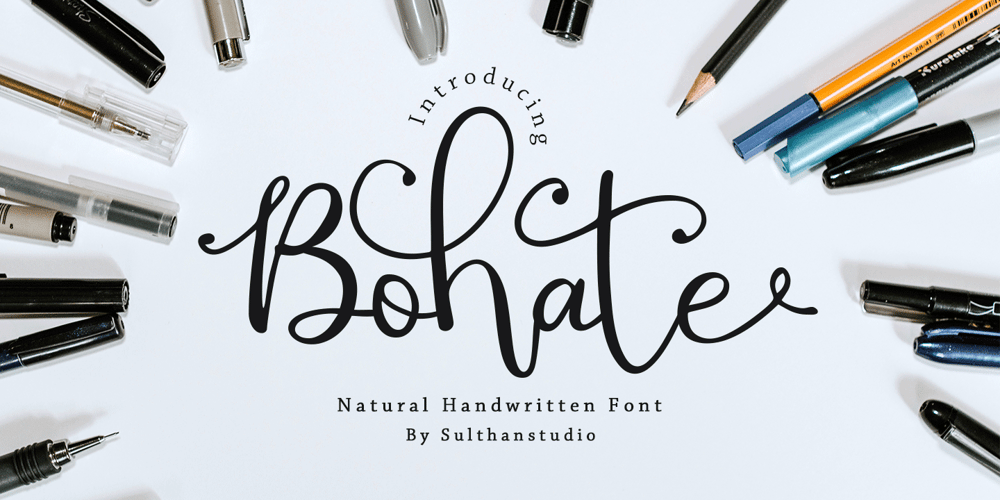
Bohate Font Family was designed by Nasrullah and published by Sulthan Studio. Bohate contains 1 styles and family package options. Introduce Bohate – is a font from handwriting on paper then made it come alive and I removed some of the smudges to make it look neat with an alternative for each letter that goes up and down differently like the letters b,d,f,g, h, j, k, l, p, t, y etc has a total of 713 glips featuring uppercase, lowercase, numbers, punctuation, language support, swash, alternatives and binders. very natural you can try it and enjoy your work with this handwriting